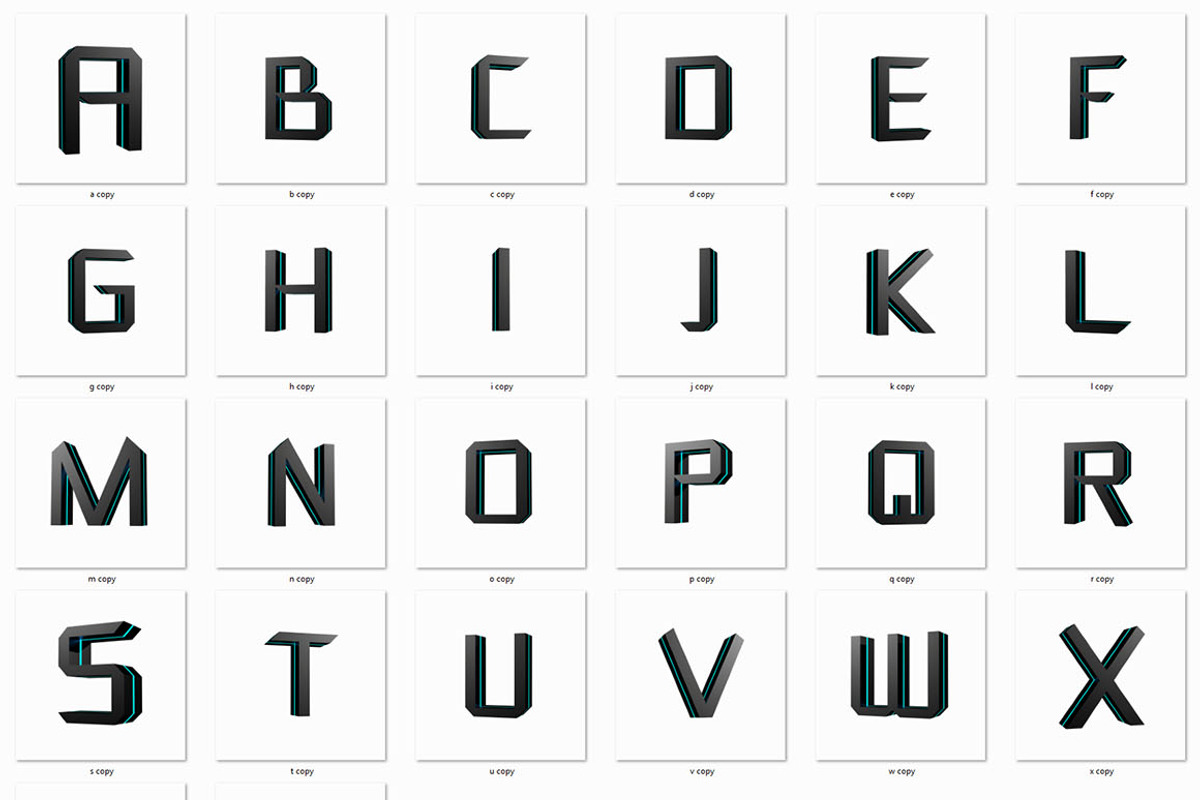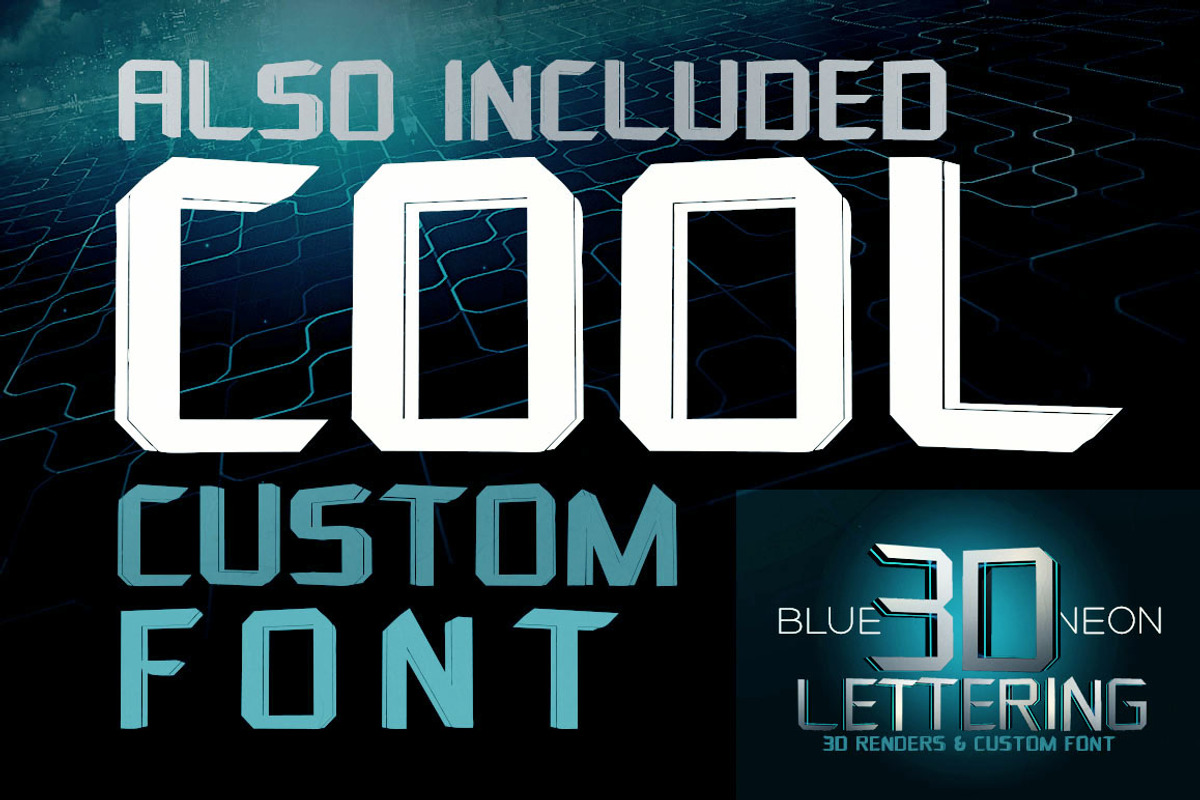
Blue Neon - 3D Lettering + Font
Blue Neon - 3D Lettering + Font by MIIM is a font selected for branding, posters, packaging, typography.
Blue Neon - 3D Lettering + Font by MIIM fits naturally into Branding, posters, packaging, typography.